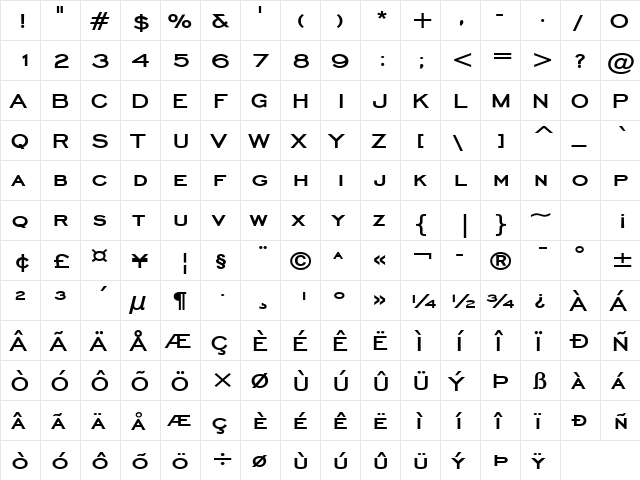
Monday '88 Bold Font Preview
Monday '88 Bold
Monday '88 Bold Font Details
Design Context for Monday '88 Typeface
Monday '88 takes a measured approach to typography — its balanced proportions and neutral character make it a reliable workhorse for both digital and print work. Its bold stroke weight gives it real presence on the page.